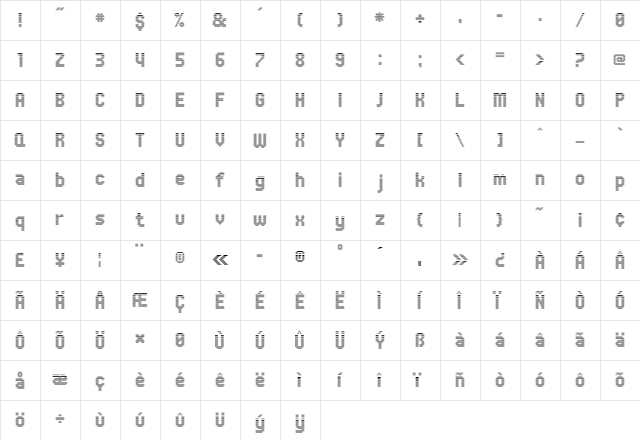
UNDA Regular
Design Context for UNDA Typeface
UNDA is a composed and adaptable typeface that performs quietly and consistently across a wide range of design contexts.